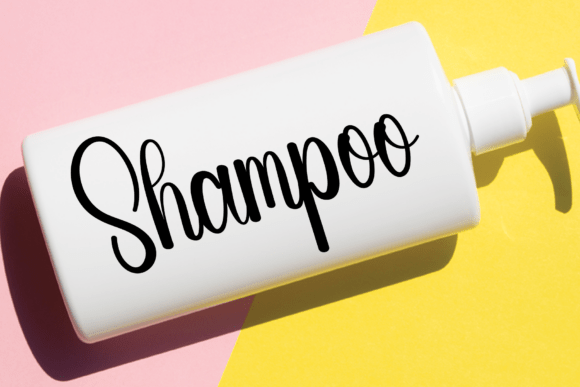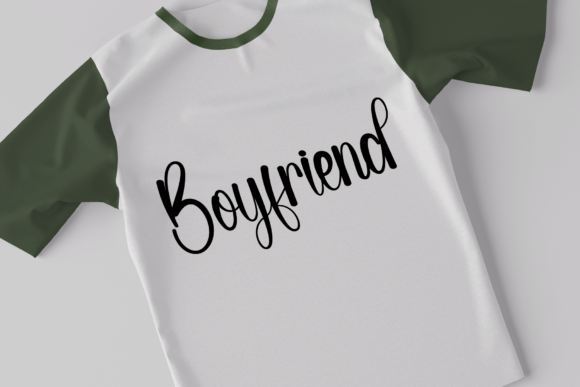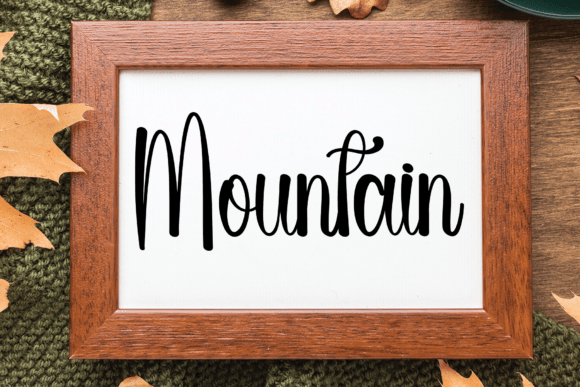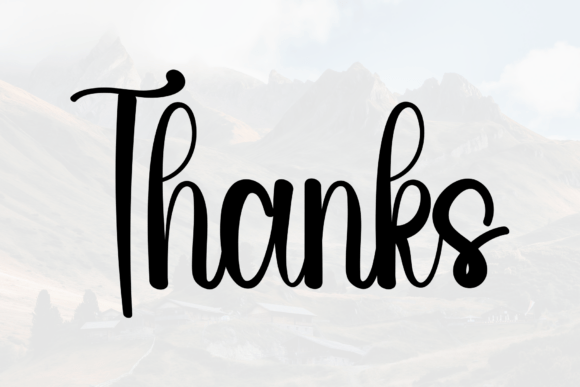
The Art of Handwritten Charm
As a designer, there’s nothing quite like the thrill of bringing a concept to life. Maybe it’s the late-night brainstorming session, the stroke of inspiration, or the satisfaction of seeing your vision take shape. For me, it’s often the moment when I get to choose the perfect font to complement my design. And that’s exactly where the Calligrapher Font comes in – a beautiful, handwritten font that’s as elegant as it is casual.
With its relaxed, sporty feel, the Calligrapher Font is perfect for branding, logos, wedding supplies, and more. It’s a versatile font that can add a touch of luxury to any design, making it a valuable tool for designers looking to create unique and memorable designs. Whether you’re working on a fashion lookbook or a marketing promotion, the Calligrapher Font is sure to elevate your design game.
Calligrapher Font Key Features
- Unique Characteristics: The Calligrapher Font features a beautiful, handwritten script with intricate details and flourishes, making it perfect for adding a touch of elegance and sophistication to designs.
Calligrapher Font Review
Overall, I think the Calligrapher Font is a great choice for designers looking to add a touch of elegance to their projects. It’s perfect for titles, headings, and any text that needs a little extra flair. ✨ The font’s fluid curves and beautiful letterforms make it a joy to work with.
- Beautiful, flowing curves that add a touch of sophistication to any design.
- Wide range of weights and styles to choose from, making it easy to find the perfect fit for your project.
- High-quality digital font that looks great on screen and in print.
However, there are a few limitations to keep in mind. ⚠️ The font can be a bit difficult to read in small sizes, and some of the letters can be quite ornate, which may not be suitable for all designs.
- Can be difficult to read in small sizes due to the intricate details.
- May not be suitable for text-heavy designs or projects where readability is a top priority.
Overall, I would definitely recommend the Calligrapher Font to designers looking to add a touch of elegance to their projects. Just be sure to use it wisely and in the right context.
4. Use the font’s ligature and swash features to create a more realistic, hand-written look.
4. Use the font’s elegant, cursive script to add a touch of sophistication to your presentation or document.
Tips for Getting the Most Out of Calligrapher Font
Experiment with different font sizes, styles, and arrangements to achieve a unique look.
Use the font’s ligature and swash features to create a more realistic, hand-written look.
Combine the Calligrapher font with other elegant fonts to create a sophisticated design.
The Calligrapher font is ideal for:
Formal event invitations and announcements
Personalized gifts and cards
Magazine and book covers